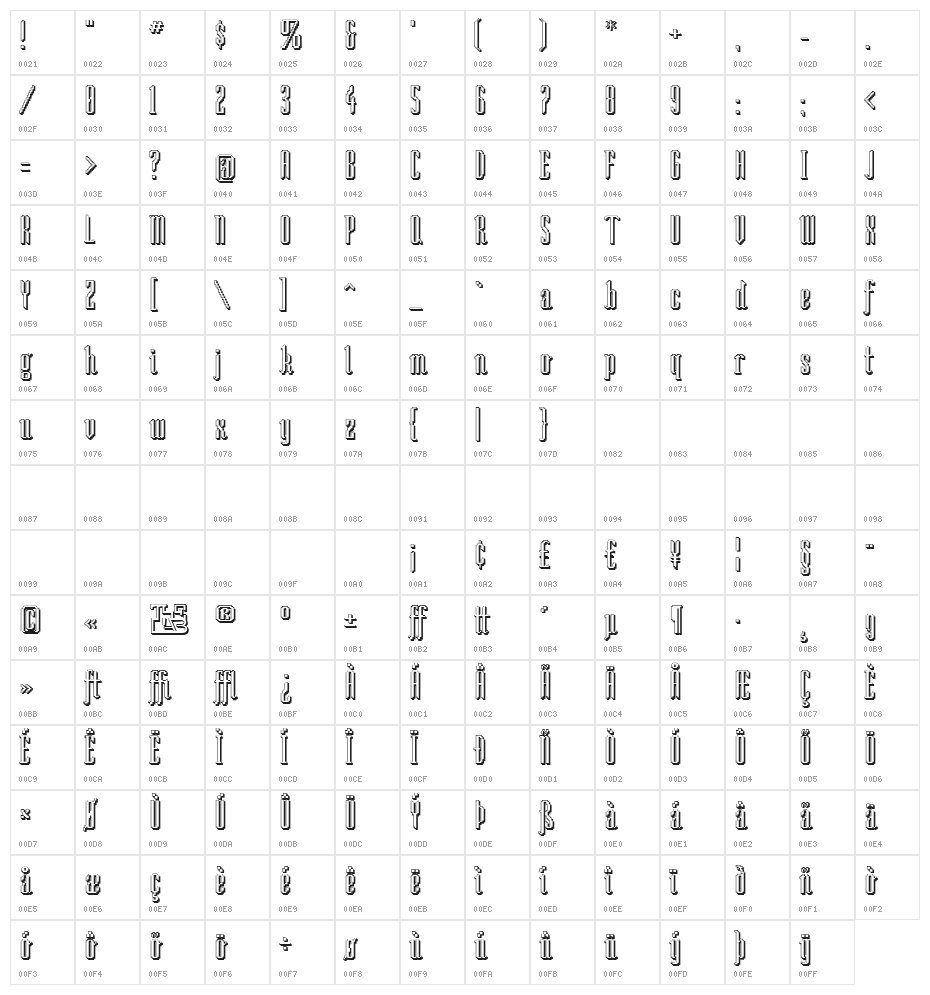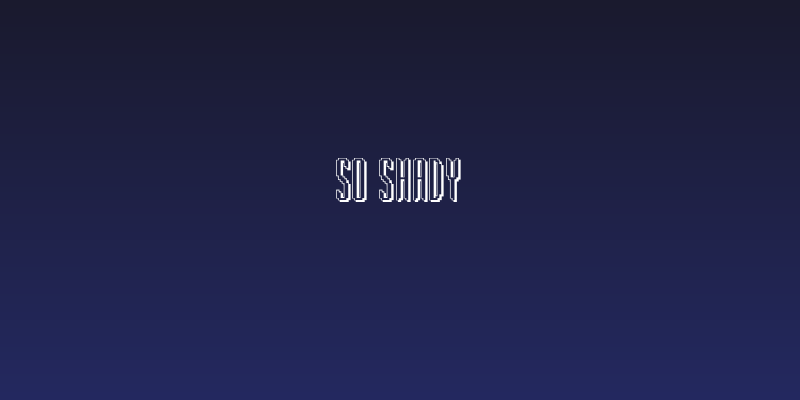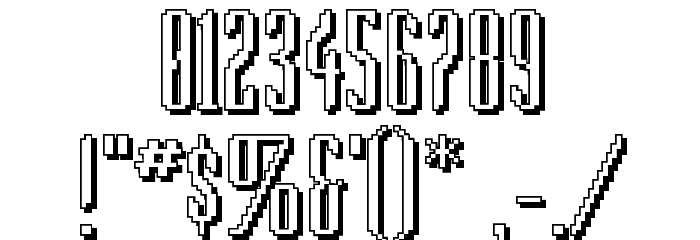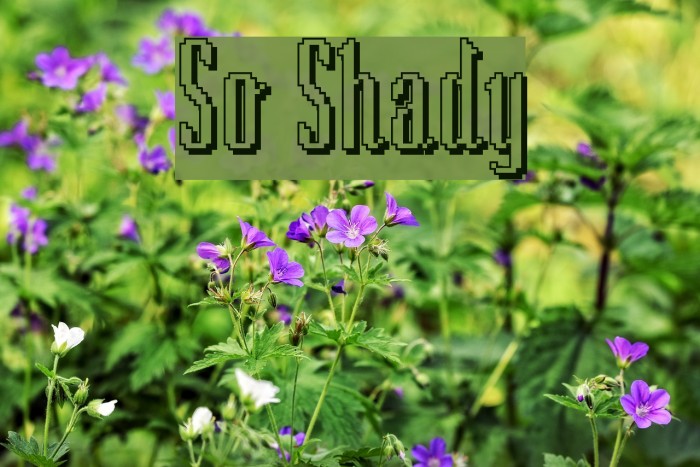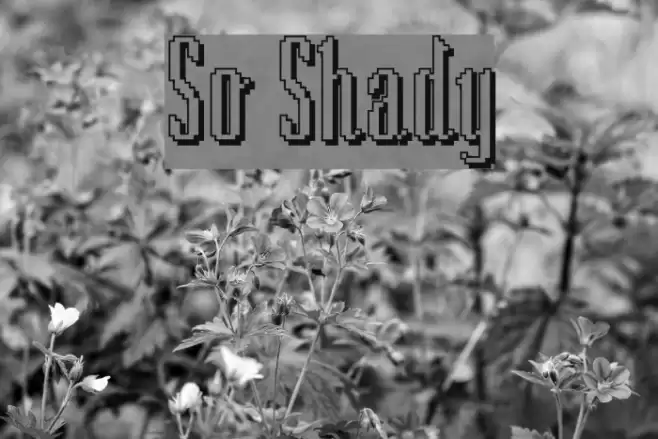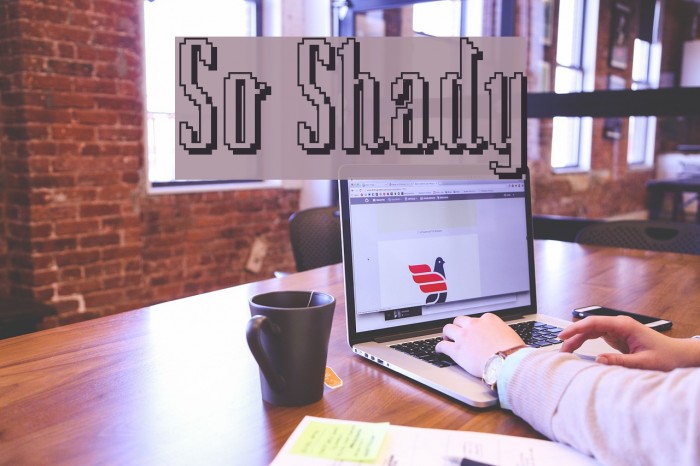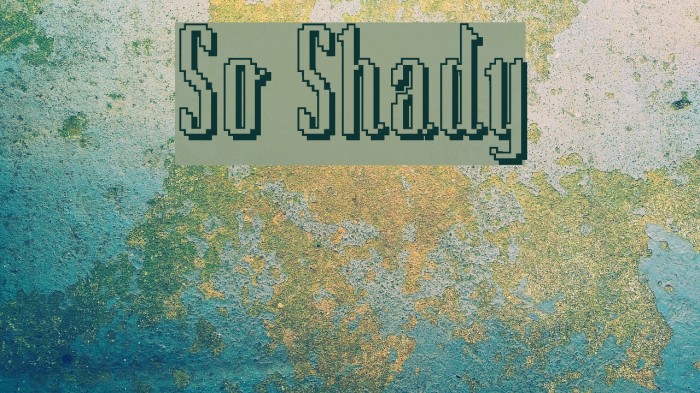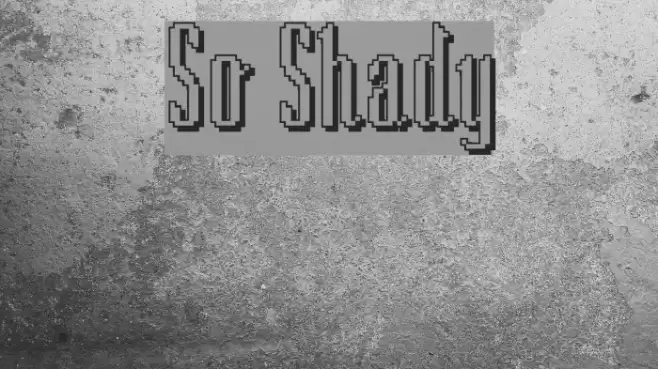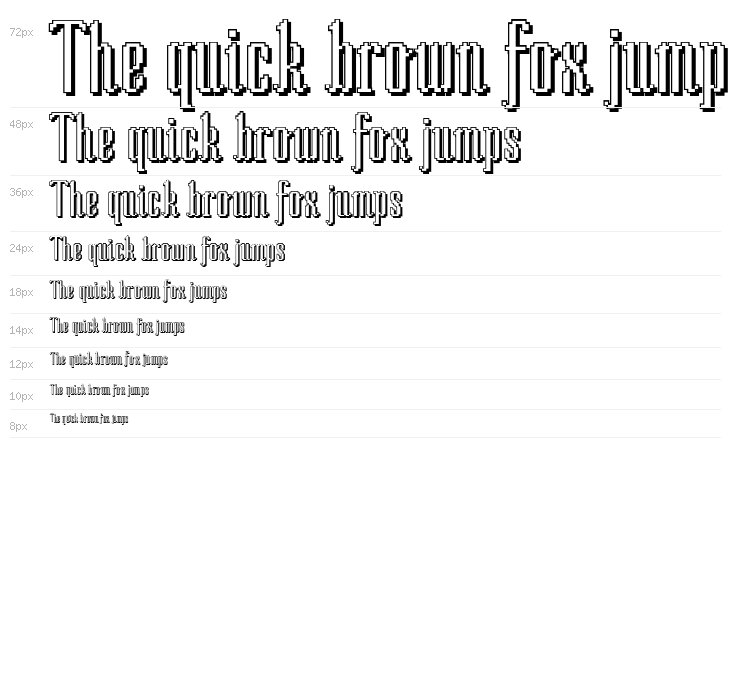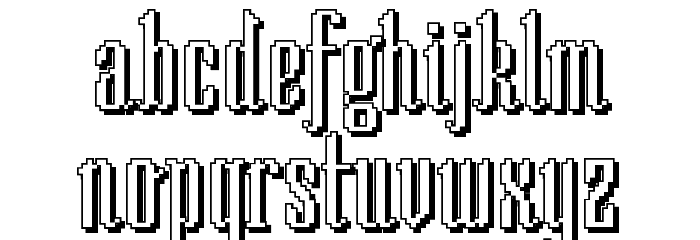
So Shady Font
So Shady Description
This font features a bold, decorative style with a unique shadow effect that gives it a three-dimensional appearance. The uppercase and lowercase letters are designed with a consistent height and width, creating a uniform look. The characters have a distinct outline that enhances their visibility and adds a touch of sophistication. The numbers and special characters maintain the same stylistic elements, ensuring a cohesive design throughout. This font is ideal for projects that require a striking and memorable visual impact.
| Proposed Projects | Ideal for posters, logos, headlines, and any design needing a bold statement. |